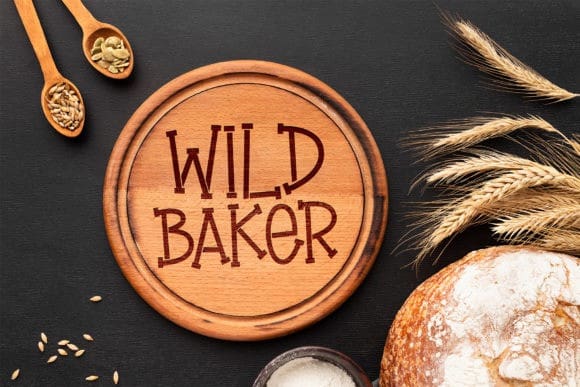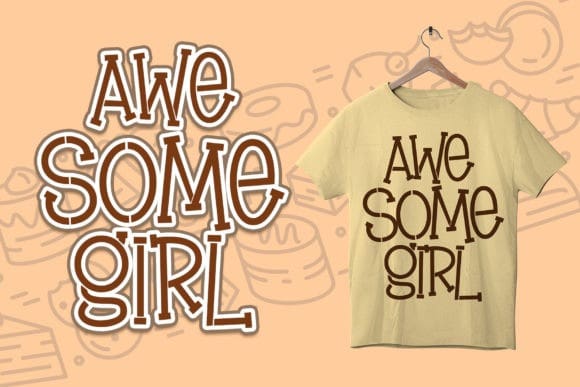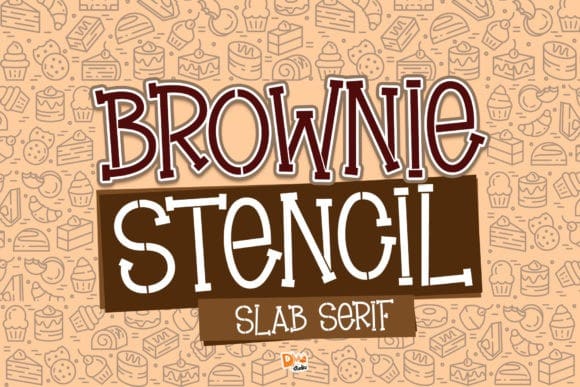
Brownie Stencil Font
Brownie Stencil Font is a fun, quirky and neat slab serif font. It is ideal for a wide range of children or school projects. Add it confidently to your designs and you will love the results!